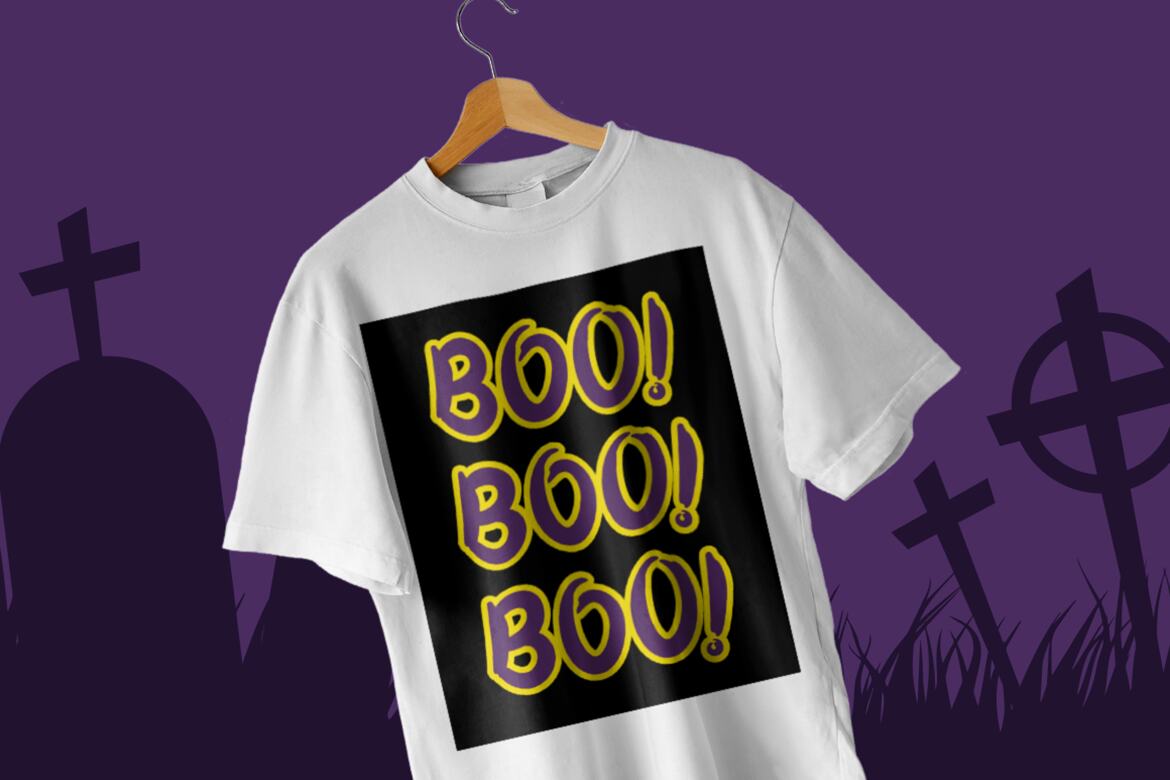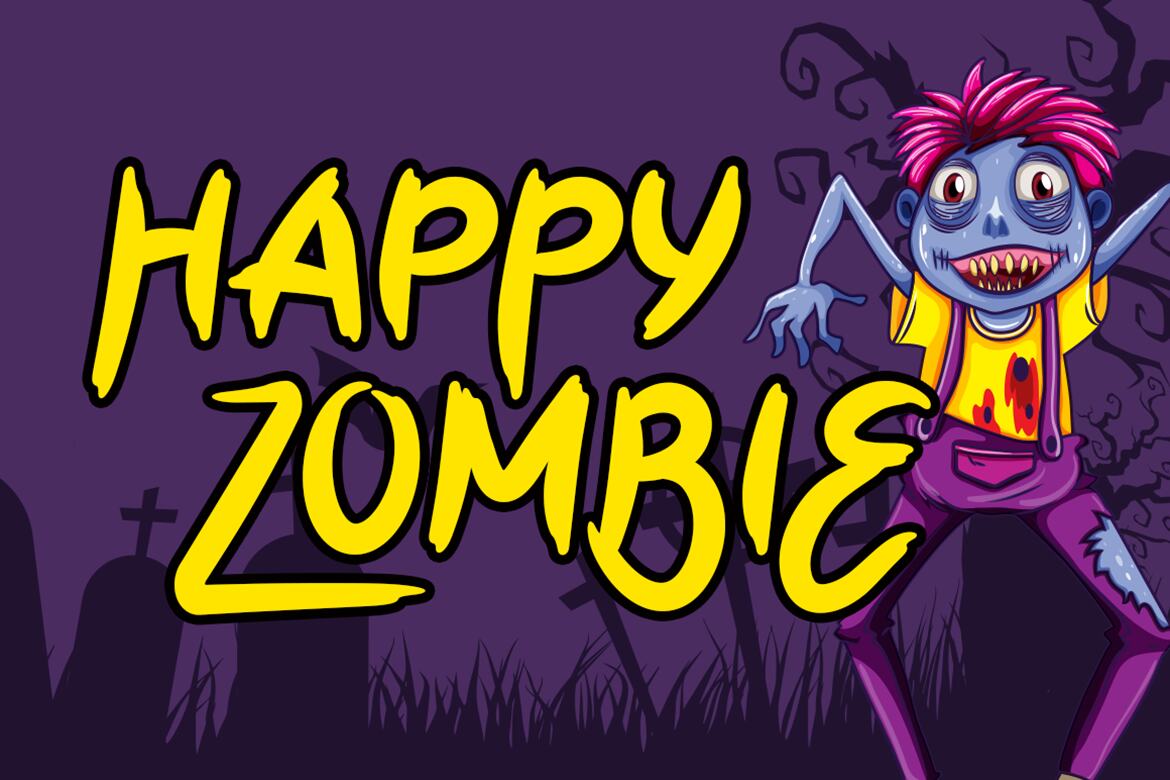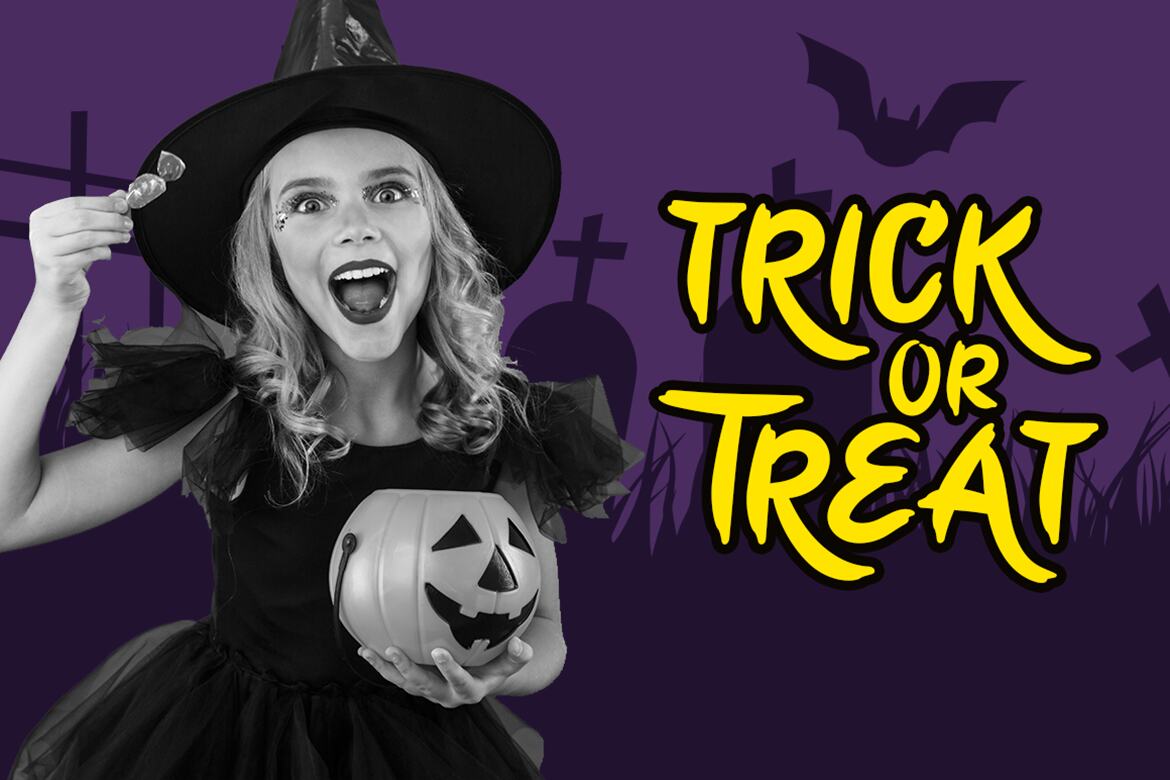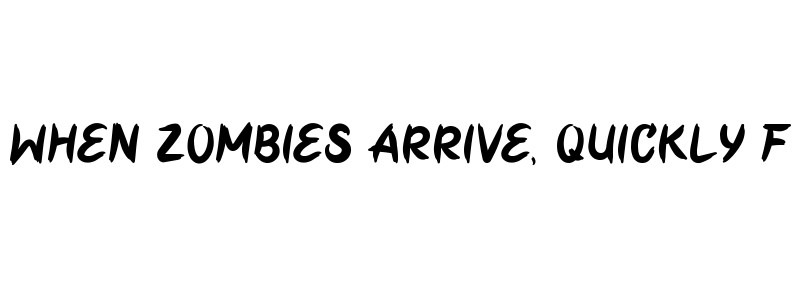
Yellow Pumpkin - Free Halloween Font
Yellow Pumpkin
Yellow Pumpkin is a fun and playful display with a scary horror theme. Masterfully designed to become a true favorite, this font has the potential to bring each of your creative ideas to the highest level!
• fun and playful display
• halloween theme
• scary horror theme